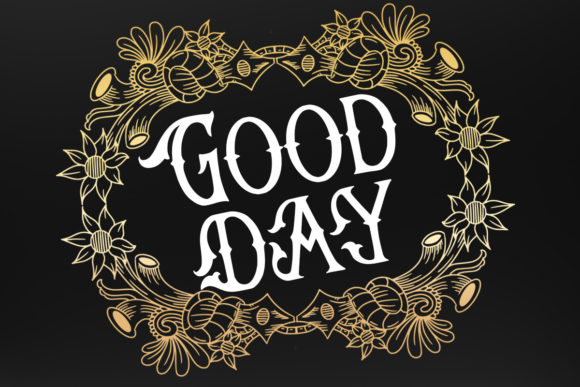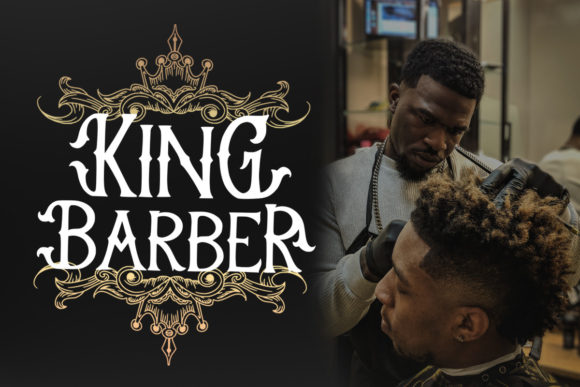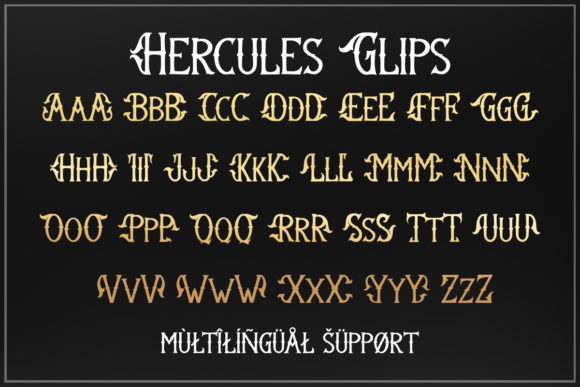
Introduction to Hercules Font
Hercules is a bold and distinct blackletter font.
Add this assertive font to your favorite creations and notice how easily they stand out This font is PUA encoded which means you can access all of the amazing glyphs and ligatures with ease.
Key Features of Hercules Font